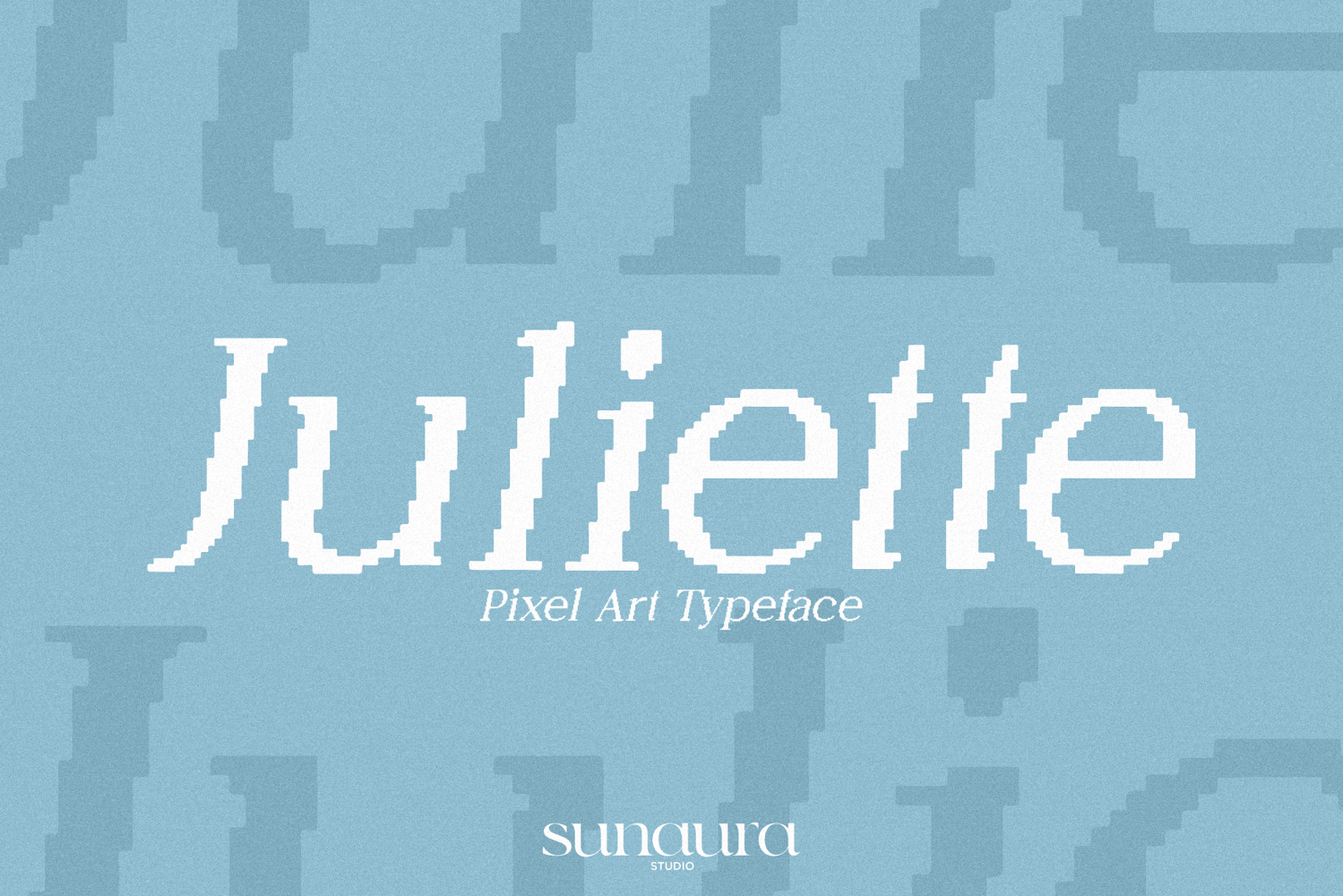
Juliette Pixel Art Serif
Juliette Pixel
Juliette Pixel Art Serif is a modern yet nostalgic typeface that blends elegant serif structure with charming pixel art aesthetics. Designed to bring a refined retro feel to your work, this font is perfect for logos, t-shirt designs, magazine layouts, website headers, and more. Juliette Pixel Art Serif features multilingual support, over 250+ glyphs, and includes uppercase and lowercase letters, numbers, and a full set of symbols. Its unique fusion of classic sophistication and pixel precision makes it a versatile choice for both contemporary and vintage-inspired designs.